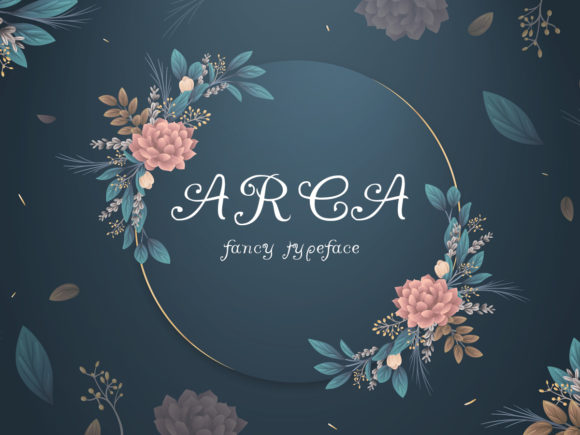
Introducing Arca Font - A Premium Handwritten Masterpiece
Arca Font is an exquisite handwritten font with an irresistibly stylish charm. Its elegant strokes are crafted to perfection, creating the impression of a personal touch in every letterform. Dive into a world of creative possibilities and transform your designs into breathtaking works of art with Arca Font.
Imagination Unleashed: Embark on a journey of creativity as you discover endless opportunities with Arca Font. Unleash your inner artist and craft captivating wedding invitations that radiate love and elegance. Design enchanting wall art that tells a unique story, leaving your guests awestruck. With Arca Font, your designs will transcend boundaries and leave an unforgettable mark.
Capture Hearts and Create Lasting Impressions: Every curve, every flourish, and every stroke of Arca Font is designed to captivate hearts and create a lasting impact. Elevate your social media presence with stunningly eye-catching posts that demand attention. Create logos and branding materials that exude sophistication and leave a lasting impression on your audience. With Arca Font, your designs will become unforgettable and leave a trail of admirers.
The Perfect Choice for Versatile Creatives: Arca Font is the ideal weapon in your creative arsenal, suitable for a diverse range of projects. Unleash your artistic vision with its effortless versatility. Whether you're designing enchanting greeting cards, creating breathtaking posters, or conceptualizing inviting flyers, Arca Font is your trusted companion. Its adaptability makes it the perfect font for any project, ensuring that your creations always exude a touch of sophistication and class.